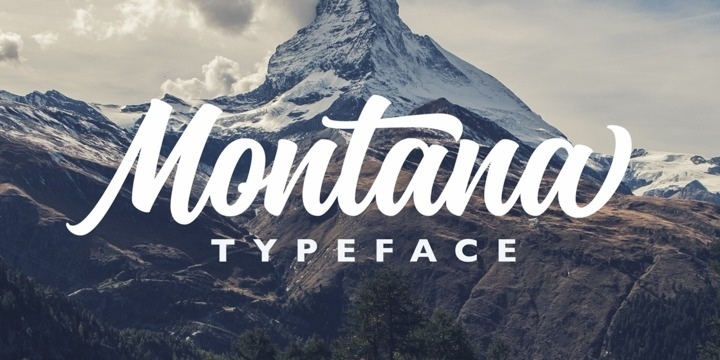
Montana Typeface Font
Montana Typeface Font is perfect for Western ranch branding, outdoor adventure companies, mountain tourism marketing, rustic lodge communications, wilderness outfitters, and authentic American frontier businesses. This rugged typeface excels in national park materials, cowboy heritage brands, hiking equipment packaging, and any application where Big Sky country and frontier spirit create authentic connections with outdoor enthusiasts and Western heritage communities.
What makes Montana Typeface Font so exciting is its exceptional ability to capture the vast openness and rugged independence of the American West through bold, frontier-inspired letterforms that embody the spirit of Montana's endless skies and mountain ranges. The font features sturdy construction, ranch-style proportions, and wilderness character shapes that reflect the authenticity and self-reliance of Western heritage. Its frontier presence makes it perfect for brands celebrating the American West and outdoor adventure.
Montana Typeface Font comes in a frontier family including Light, Regular, Medium, Bold, and Big Sky weights. Each style features complete uppercase and lowercase character sets, Western symbols, ranch numerals, and frontier punctuation marks. The font family also includes cowboy alternates, wilderness ligatures, and mountain variations that allow designers to create truly authentic Western communications with frontier appeal and professional outdoor quality.
This commanding typeface transforms communications into powerful expressions of Western heritage and outdoor adventure spirit. Montana Typeface Font Free Download provides outdoor businesses and Western brands with essential typography that honors frontier traditions while serving contemporary adventure tourism needs. Whether you're developing brands for mountain resorts, creating materials for outdoor equipment companies, or designing promotional content for Western heritage experiences, this font delivers authentic frontier resonance with Big Sky elegance.
The font's Western character makes it particularly effective for ranch tourism, outdoor outfitters, Western heritage organizations, and mountain adventure companies. Its rugged readability ensures that Montana Typeface Font communicates clearly while maintaining its distinctive frontier personality. The font's ability to evoke independence and outdoor authenticity makes it an invaluable mountain peak for any project seeking to celebrate Western heritage and connect with audiences through the timeless appeal of frontier spirit, outdoor adventure, and the boundless freedom of Montana's magnificent wilderness landscapes.